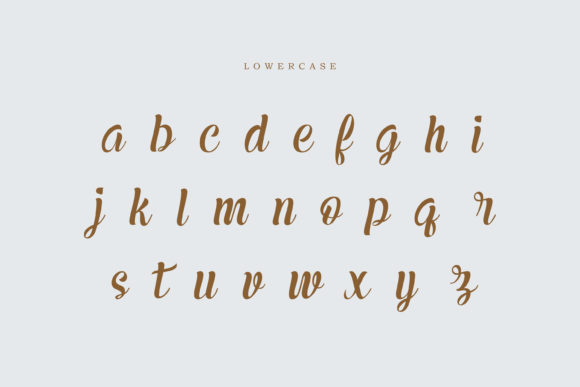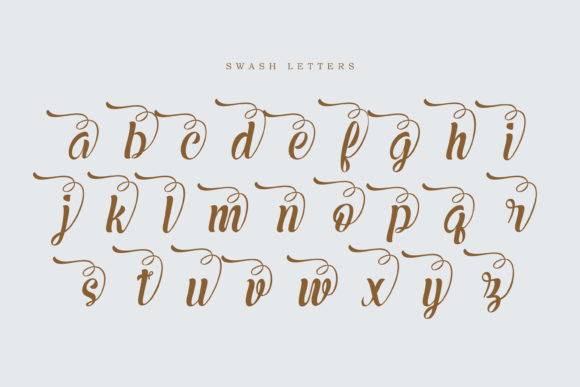
About Garden House Font
Garden House is a unique. bold and stylish handwritten font. It looks beautiful on a variety of designs requiring a personalized style, such as wedding invitations, thank you cards, weddings, greeting cards, logos and so on.